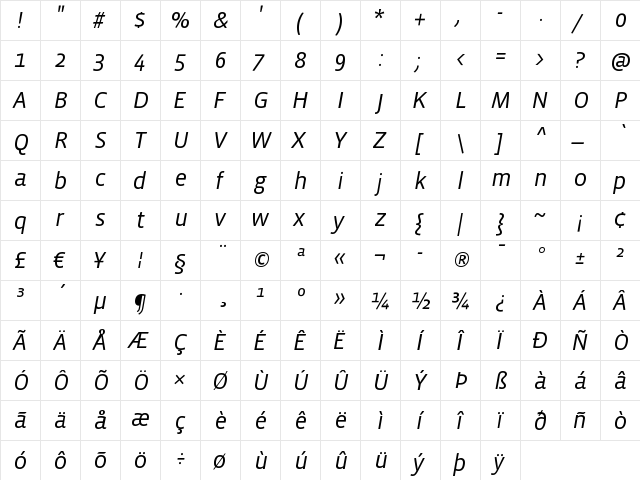
VistaSansBookItalic Regular
| Designer | Xavier Dupre |
Design Context for VistaSansBookItalic Typeface
VistaSansBookItalic takes a measured approach to typography — its balanced proportions and neutral character make it a reliable workhorse for both digital and print work. Its italic angle brings a sense of urgency and motion to the letterforms.
Pro Tip: Use VistaSansBookItalic for emphasis, pull quotes, and subheadings where its slanted energy can add rhythm to the layout.